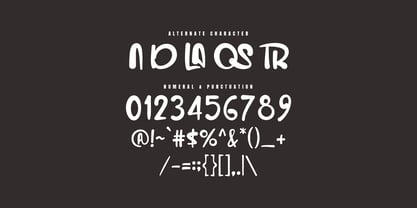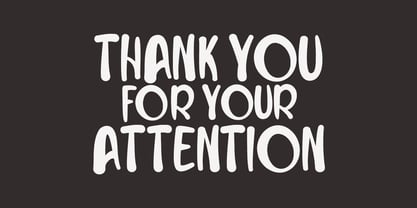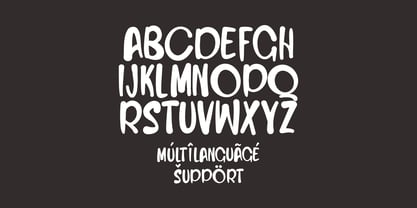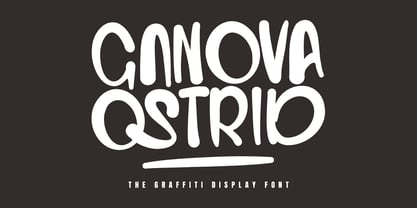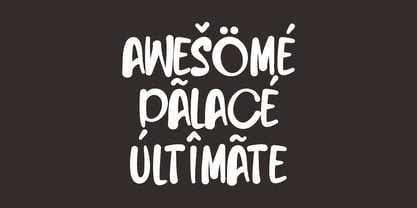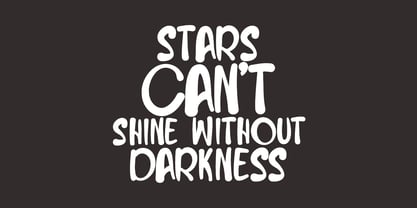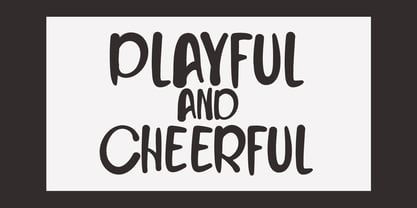
MC Ganova Ostrid
by Maulana Creative
The MC Ganova Ostrid Font Family was designed by Gilang Maulana and published by Maulana Creative. MC Ganova Ostrid contains 1 styles. More about this family
Give your designs an authentic brush handcrafted feel. "Ganova Ostrid Graffiti Font" is perfectly suited to signature, stationery, logo, typography quotes, magazine or book cover, website header, flyer, clothing, branding, packaging design and more.
Designers: Gilang Maulana
Current Foundry: Maulana Creative